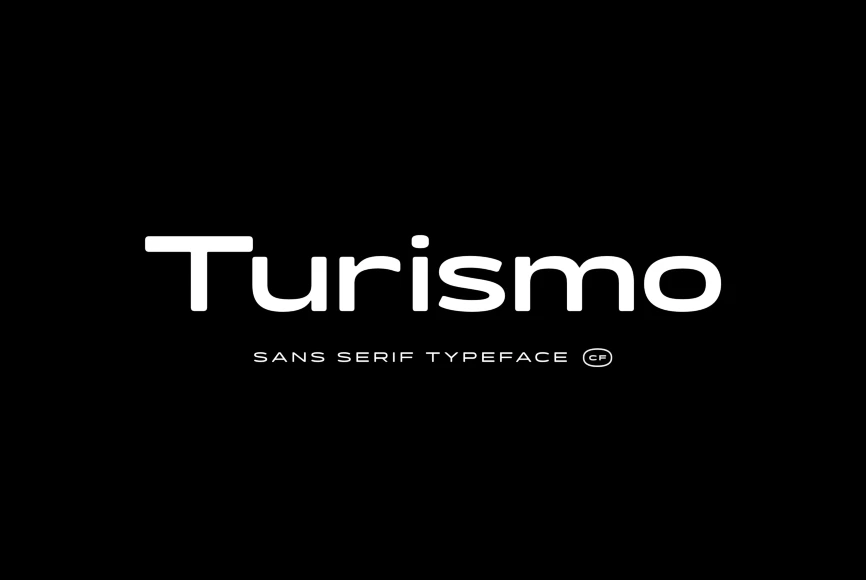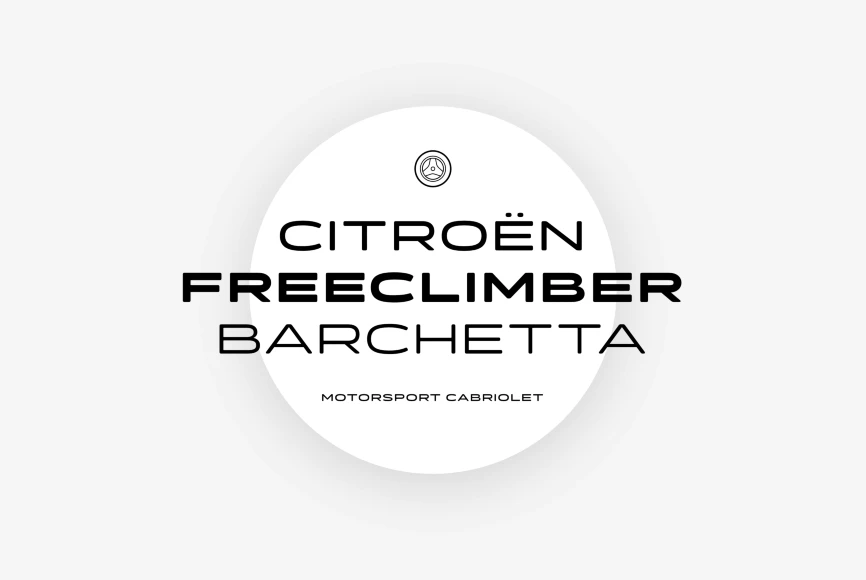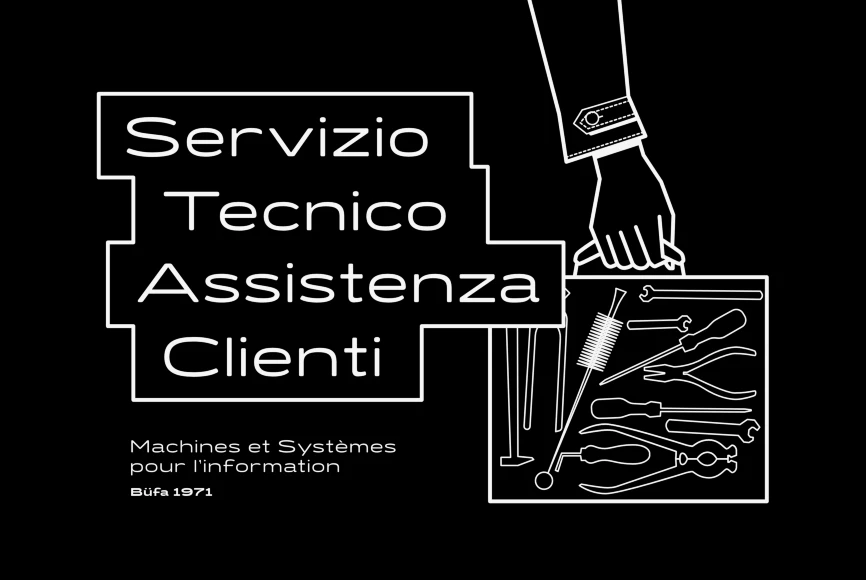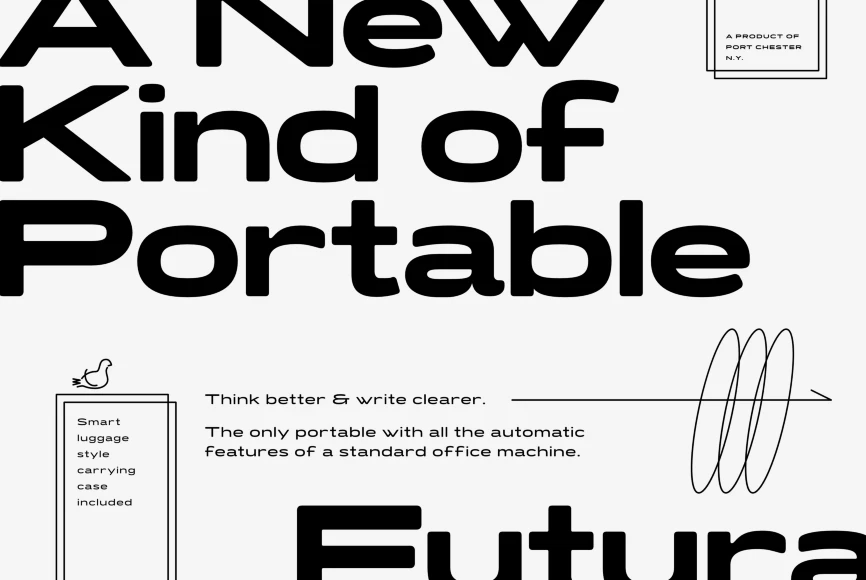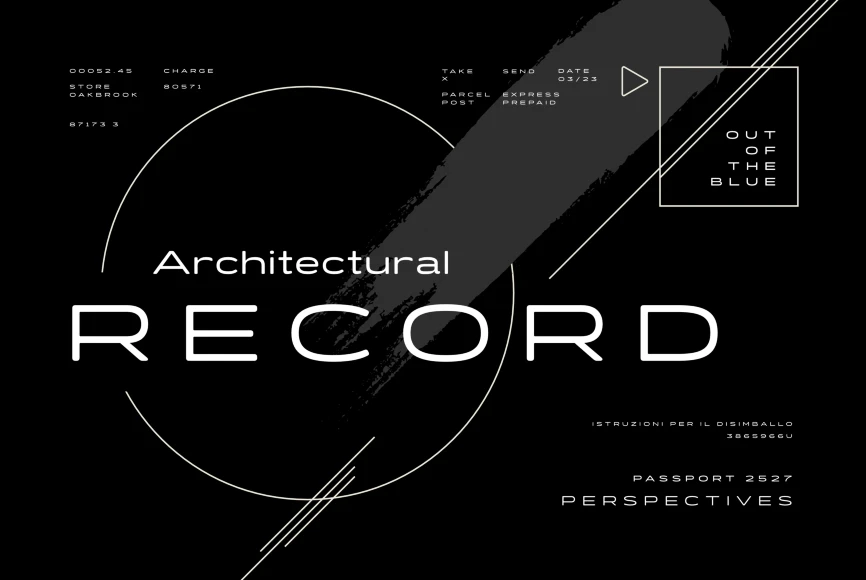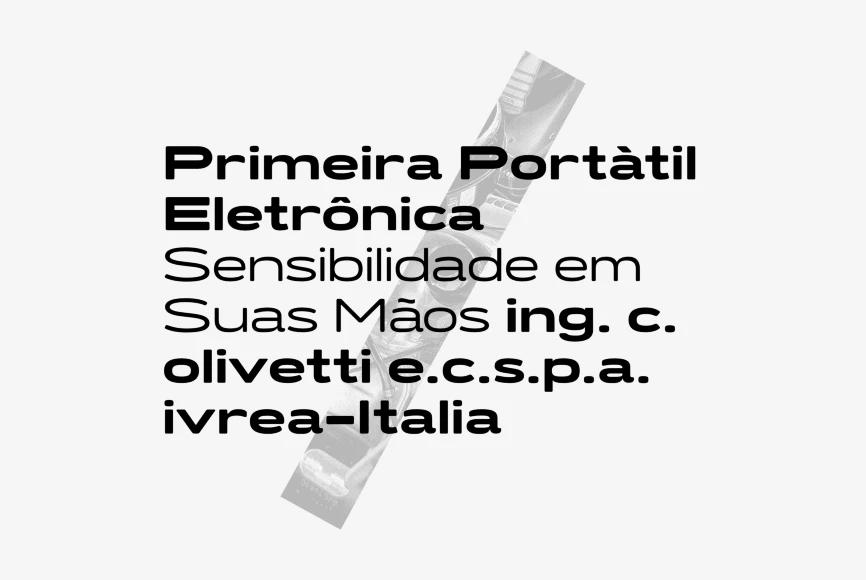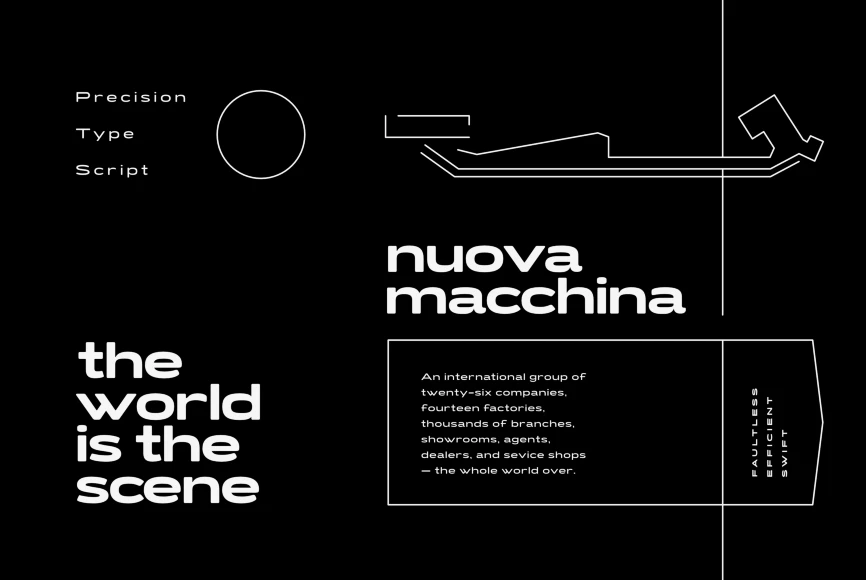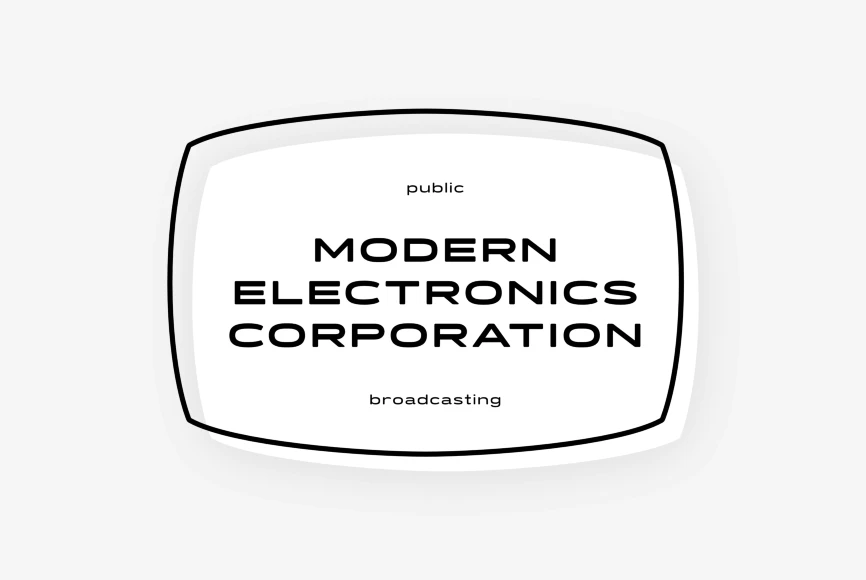
Turismo
By Connary Fagen
Turismo Light
Turismo Regular
Turismo Medium
Turismo Demi Bold
Turismo Bold
Turismo Extra Bold
Turismo Heavy
Inspired by midcentury motorsports, technology, and business, Turismo CF is designed for stunning logotypes and gripping headlines. Taking cues from both the 1960s and 1920s, Turismo combines strong rectangular shapes with sloping, elongated curves.